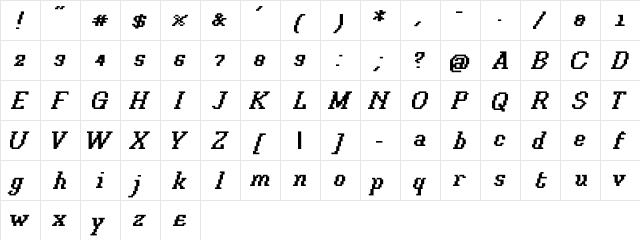
Xilla Bold Italic Font Preview
| Designer | Will Albin-Clark |
Design Context for Xilla Typeface
Xilla takes a measured approach to typography — its balanced proportions and neutral character make it a reliable workhorse for both digital and print work. Its italic angle brings a sense of urgency and motion to the letterforms. Its bold stroke weight gives it real presence on the page.
Pro Tip: Try Xilla for annotation and caption copy alongside an upright companion — the contrast in angle creates a dynamic but ordered typographic system.